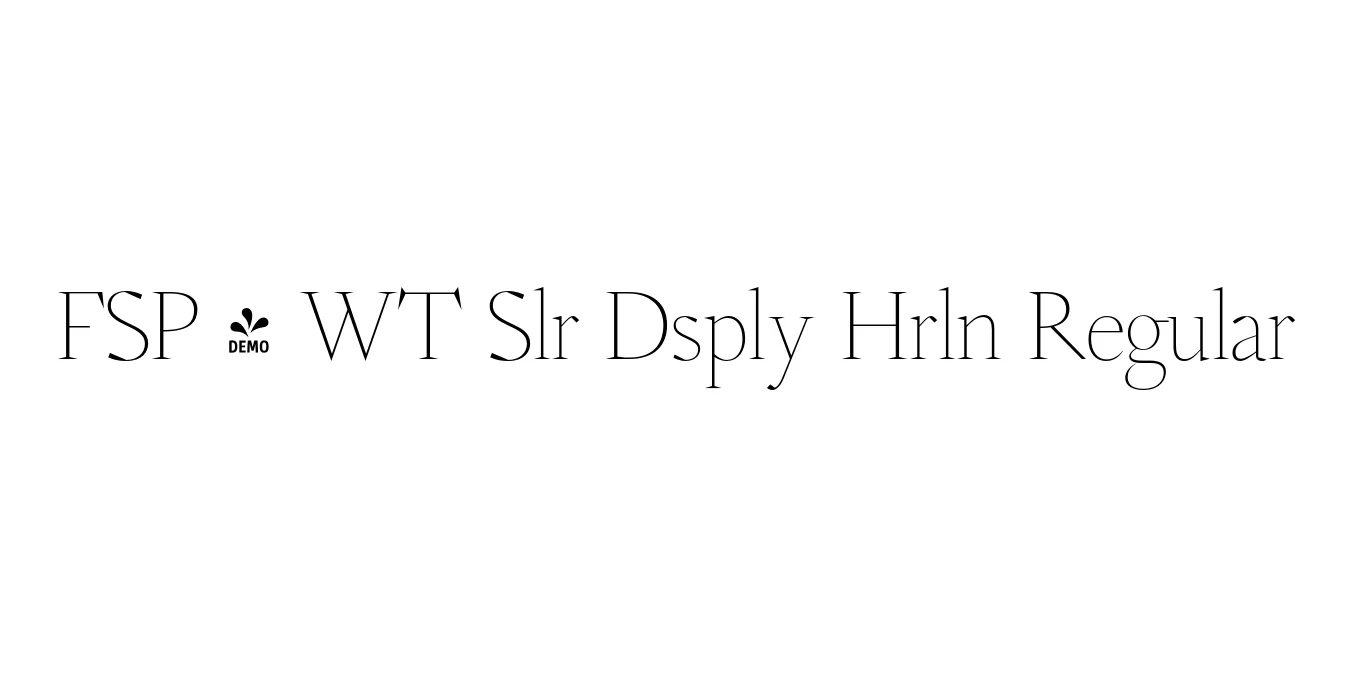
FSP - WT Slr Dsply Hrln Regular
Designed by WiseType
| Category | Display Serif |
| Designer | WiseType |
WT Solar Display Hairline Regular is a masterclass in high-contrast typography, meticulously crafted to represent the pinnacle of modern luxury and architectural precision. It features razor-thin strokes and sharp, delicate serifs that demand attention through their sheer elegance. This specific hairline weight is engineered for large-scale applications where its ethereal quality and sophisticated Roman proportions can dominate the visual field without the burden of visual weight.
As a key component of the WT Solar family, this font balances historical serif elegance with a contemporary, almost experimental edge. It is frequently the first choice for high-fashion editorial work, luxury packaging, and minimalist branding projects that require a touch of class and refinement. The typeface serves as a testament to the beauty of extreme weight modulation and is essential for designers looking to push the boundaries of display serif design.
Perfect for high-end fashion, jewelry, and lifestyle brand logos.
Best used for large magazine headlines, cover art, and feature spreads.
Creates a sophisticated impact in minimalist print designs and art gallery materials.
Ideal for dramatic, large-scale typography in hero sections of premium websites.